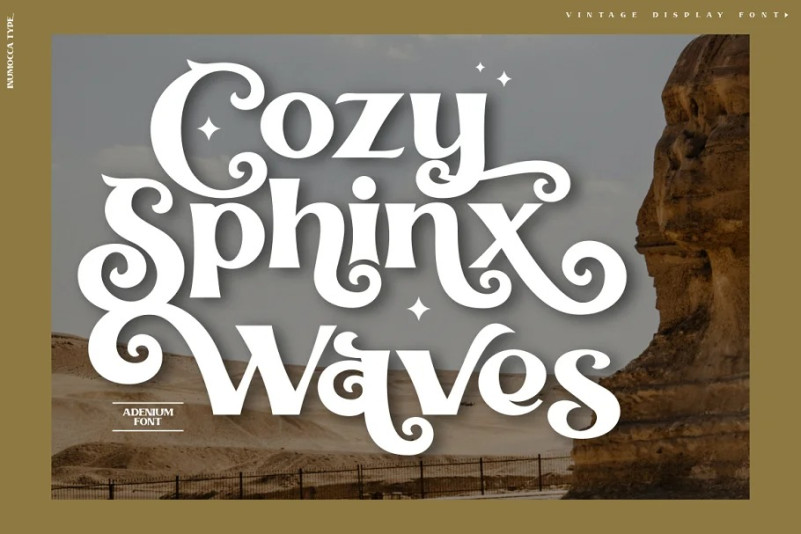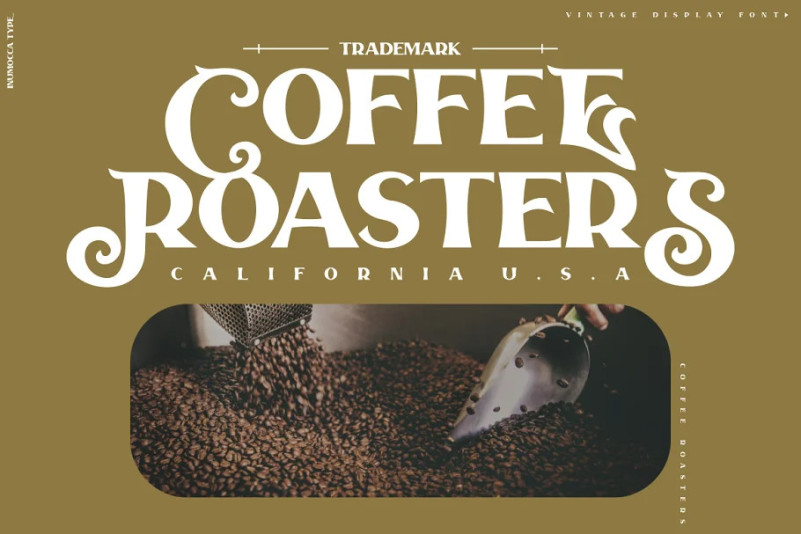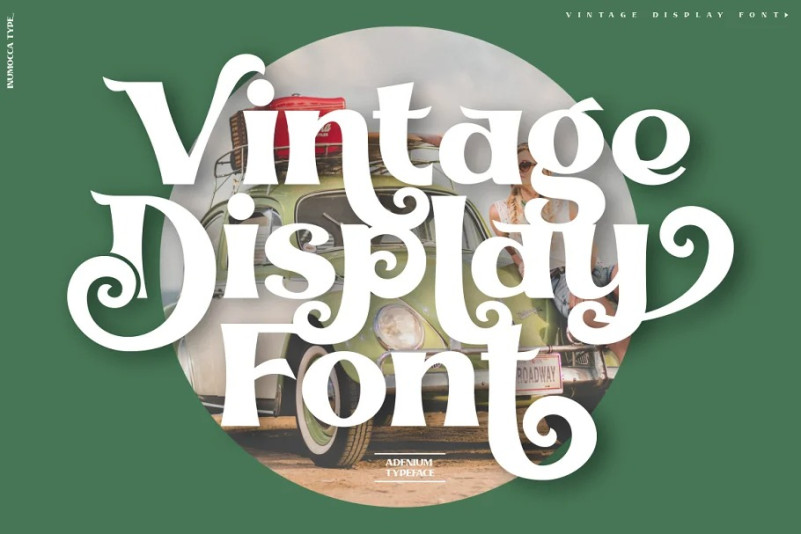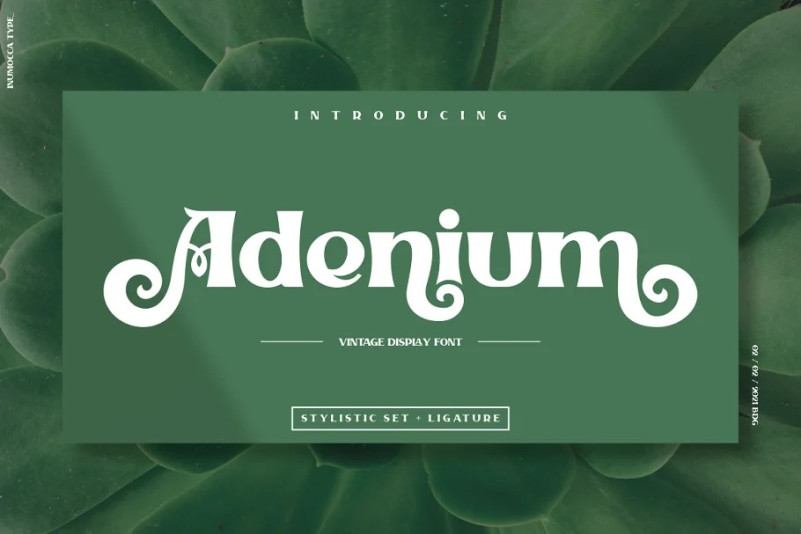
Adenium Serif Font is a modern elegant serif typeface created by inumocca_type with ligature & alternates that looks incredible in both large and small settings as a display with italic version. Unique Stylictic Set and Beautiful Ligature, Really playful typeface to covering your Project, like Lettering, Website Interface, Bookcover or Book Content, Magazine cover, Branding, Poster, wedding invitations, Quotes Lettering, Logos, and more your project design.